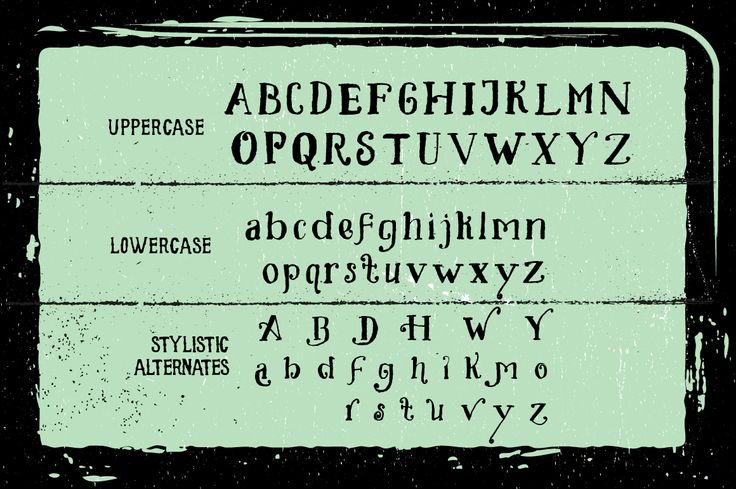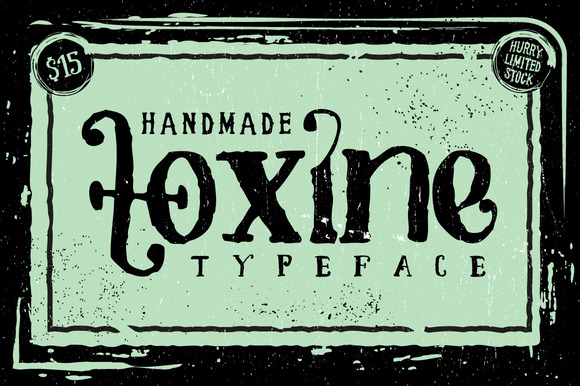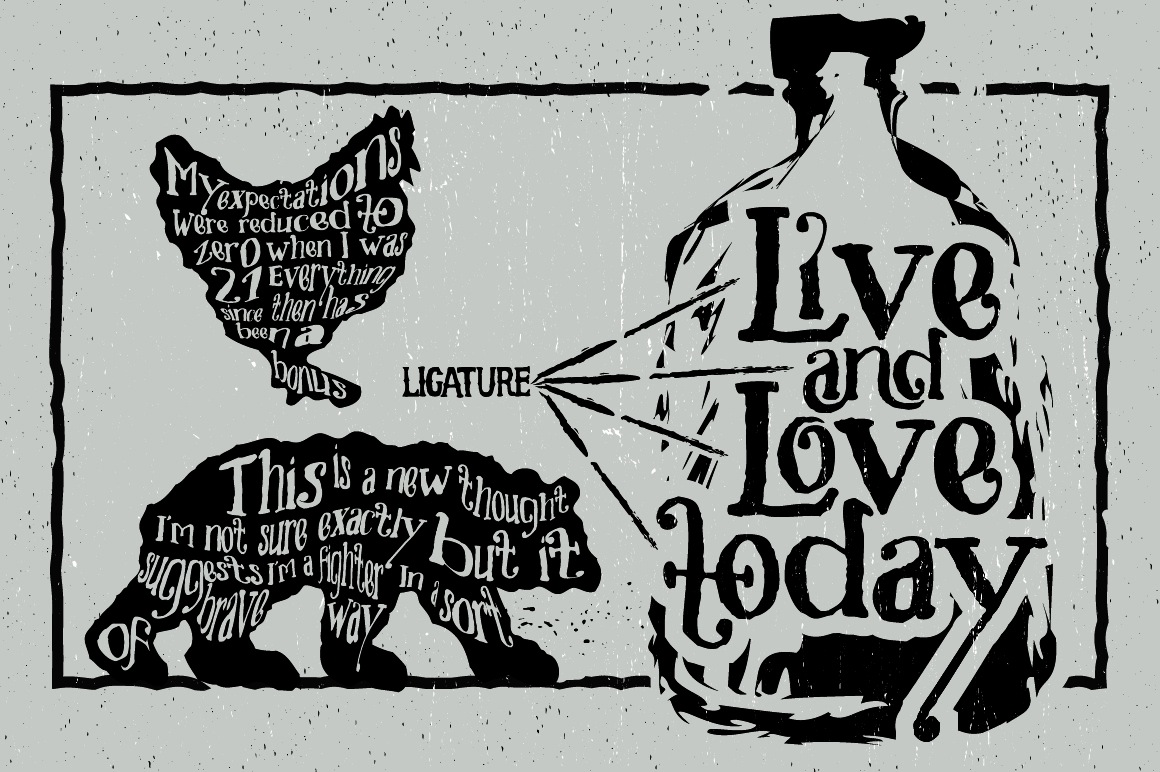
Here is my fourth product, It’s called Toxine Typeface. inspired by old hand drawn label bottle, It comes with Uppercase, Lowercase, Numbers, Punctuations, Currency, Multilingual characters, ligatures and Stylistic Alternates for the Uppercase letters & Lowercase.
Toxine